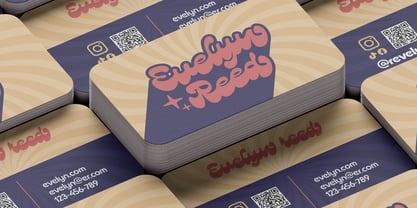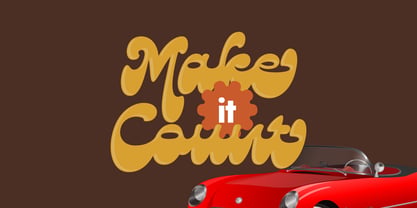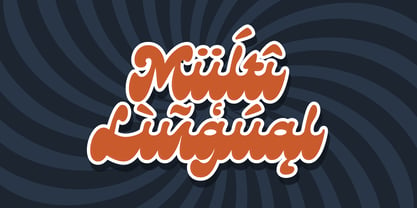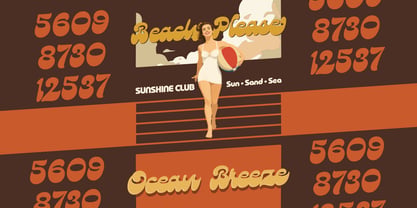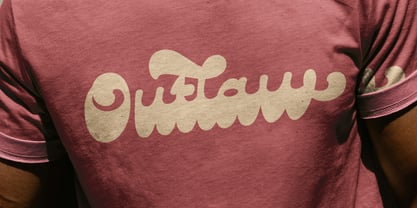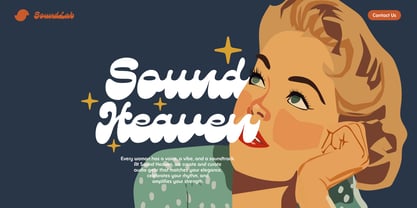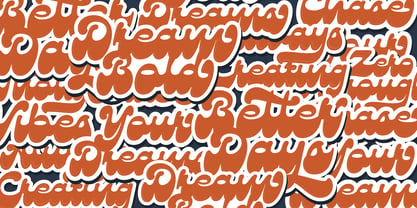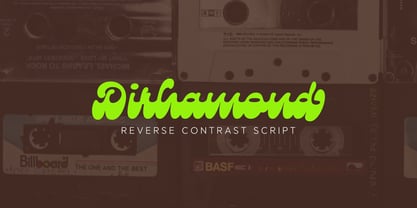
Dirhamond
by Hazztype
The Dirhamond Font Family was designed by Muhammad Hastian and published by Hazztype. Dirhamond contains 1 styles. More about this family
Dirhamond is a bold, vintage reverse-contrast script font designed to make a statement. Combining retro hand-lettering charm with unexpected thick horizontal strokes, it brings high-energy nostalgia and unique character to any design.
• Bold reverse-contrast script letterforms
• Authentic vintage & mid-century aesthetic
• Includes ligatures, stylistic alternates, and swashes
• Full multilingual support
Logos, branding, product packaging, headlines, posters, and apparel design.